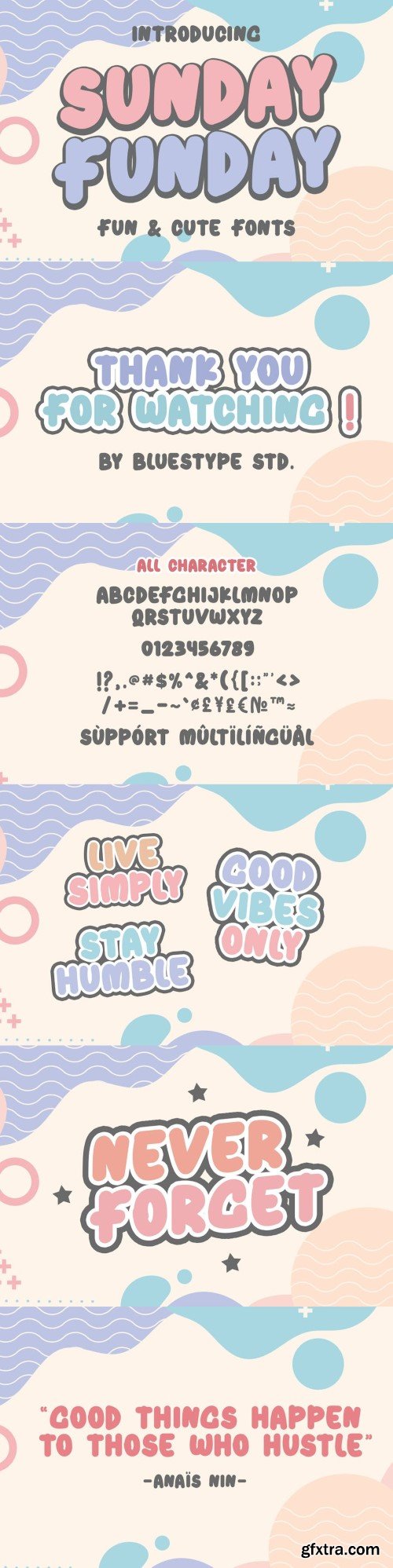
周日FUN字型
Hello ! This is our newest product called Sunday Funday. Sunday Funday is a fun and child-themed display font full of life. It will add a friendly and quirky feel to any design project!
Include international characters: ÀÁÂÃÄÅÆÇÈÉÊËÌÍÎÏÐÑÒÓÔÕÖØÙÚÛÜÝßàáâãäåæçèéêëìíîïðñòóôõöøùúûüýÿ